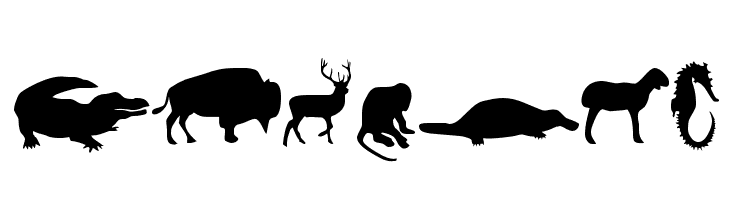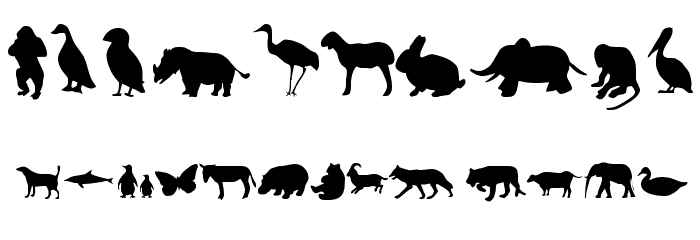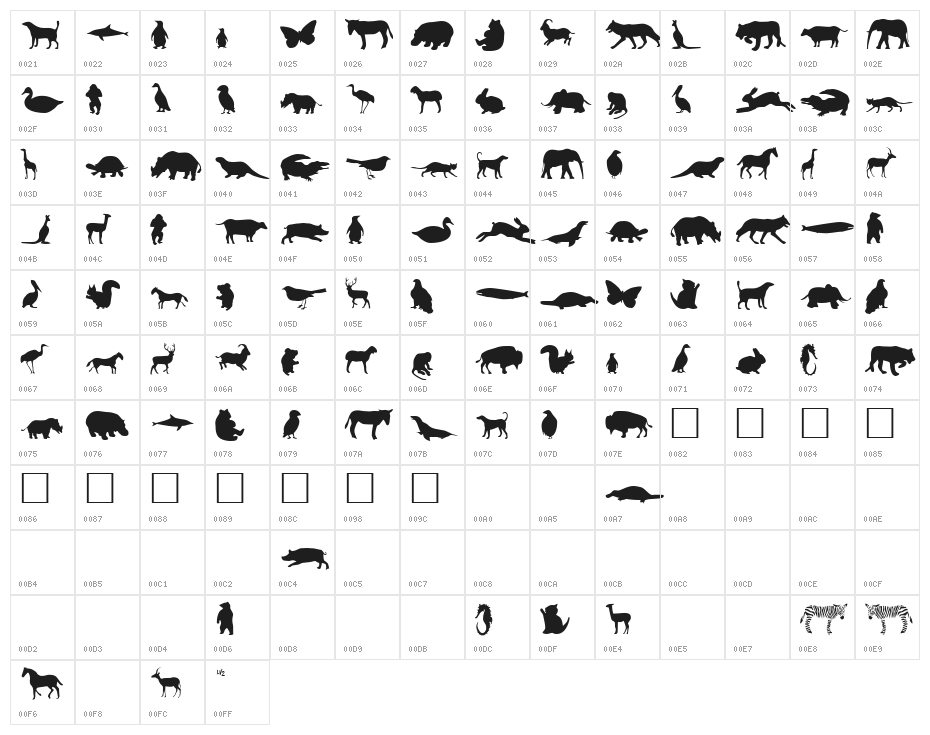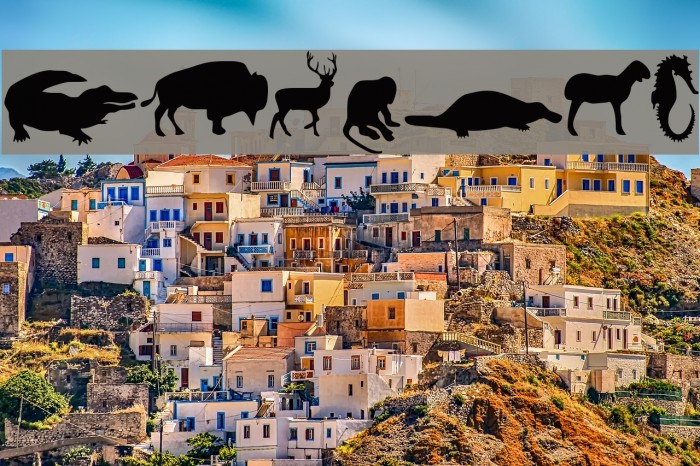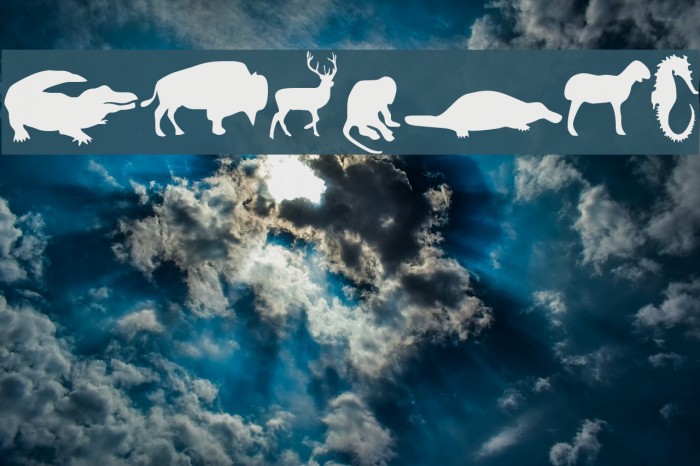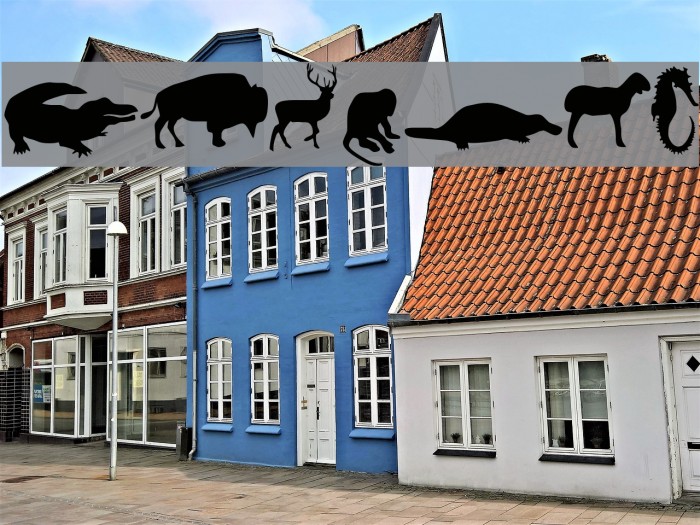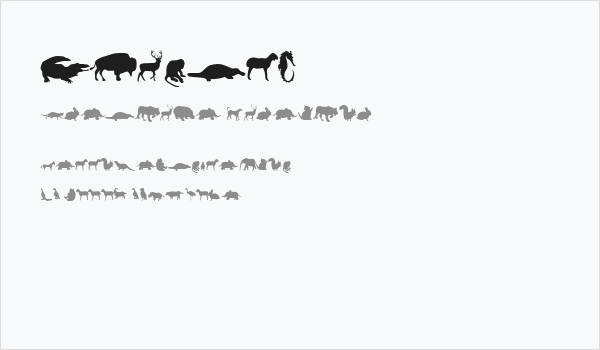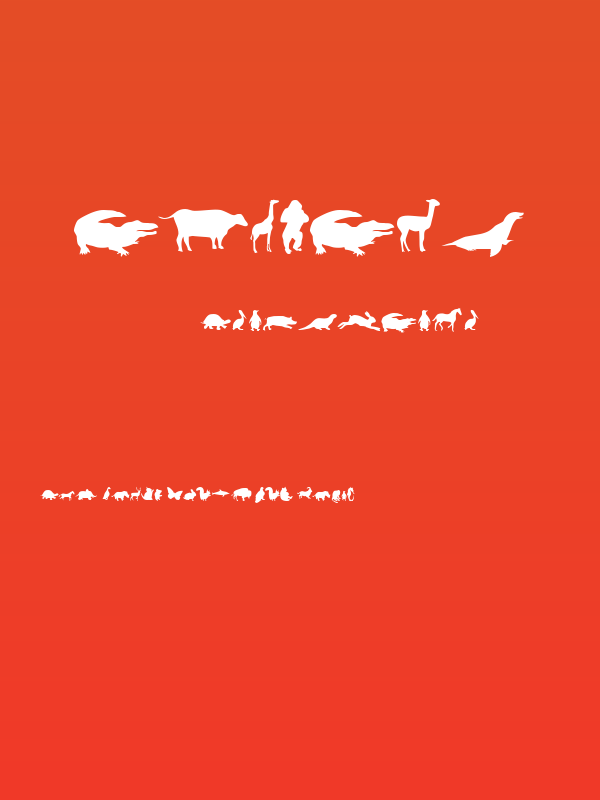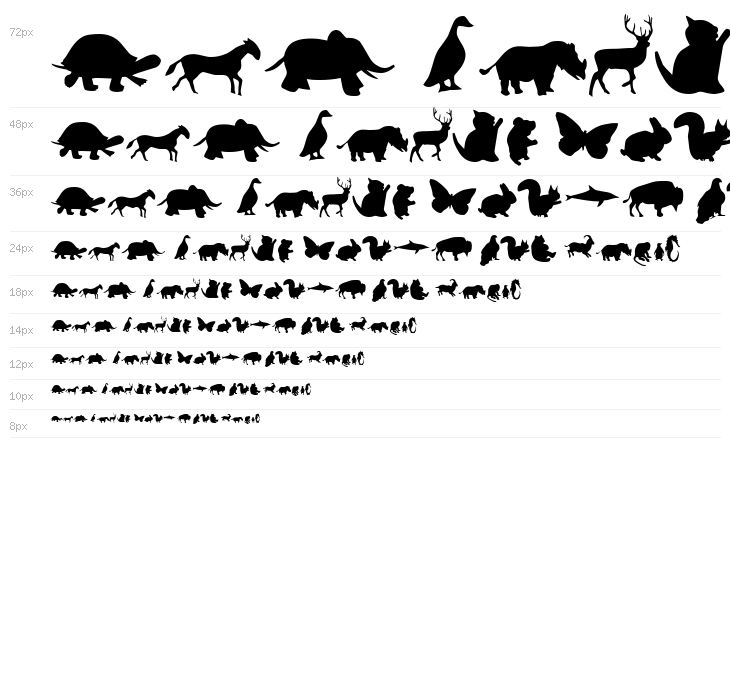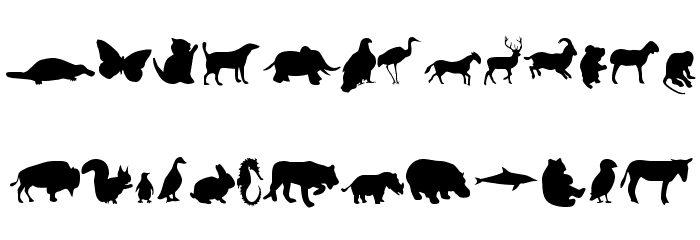
Animals Font
Animals Description
A collection of animal silhouettes representing various species including mammals, birds, reptiles, and marine life. The shapes are solid black with no internal details, designed as decorative icons or symbols rather than traditional alphanumeric characters.
| Overall Style | Decorative and illustrative |
| Use Case | Icons, logos, educational graphics, decorative elements |
| Proposed Projects | Use in wildlife-themed designs, educational materials, logos, signage, and decorative patterns. |